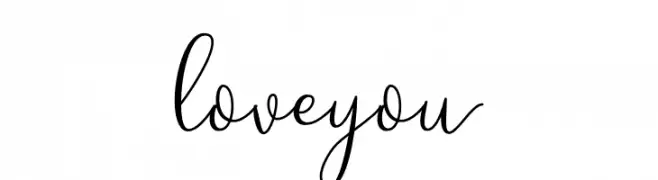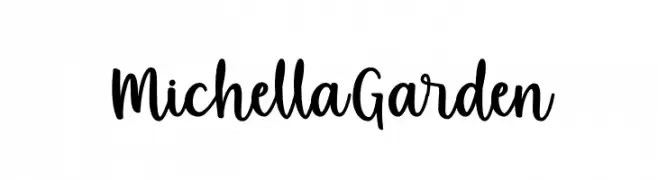
A playful and flowing script font with elegant curves and decorative swashes.
A flowing, cursive font with elegant loops and swashes, offering a handwritten appearance.
A stylish and elegant cursive font with expressive loops and swashes.
An elegant, flowing script font with decorative swashes and smooth cursive strokes.
A flowing, cursive script font with elegant swashes and intricate loops.
A bold, cursive font with elegant, flowing lines and decorative swashes.
A flowing, elegant script font with interconnected letters and ornate swashes.
An elegant script font with flowing, ornate characters and sophisticated swashes.
An elegant script font with flowing, intricate loops and swashes.
A flowing, cursive script font with high contrast and elegant swashes.